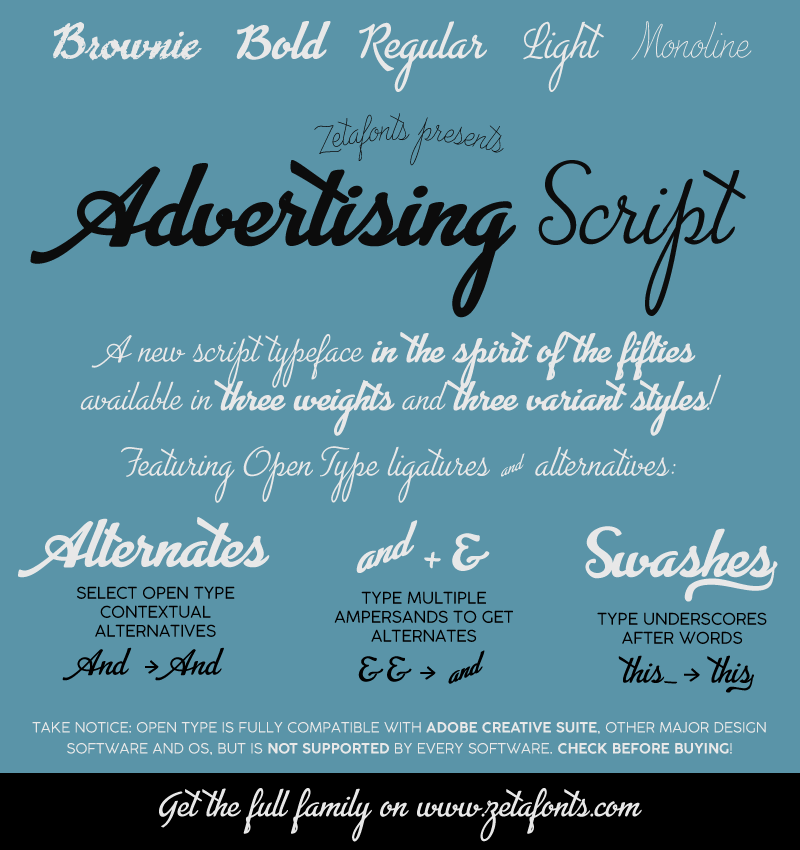
Advertising Script
Advertising Script, inspired by Ross Frederic George's calligraphy, offers a vintage brush script style. Suitable for food packaging, logos, and period ads, it's expanded by Zetafonts Masterclass 2016 Team. With lighter weights, rough & monoline versions, it supports ligatures, alternates, and numerous languages, comprising over 40 Latin alphabet languages. It encompasses four weights and a unique monoline variant.